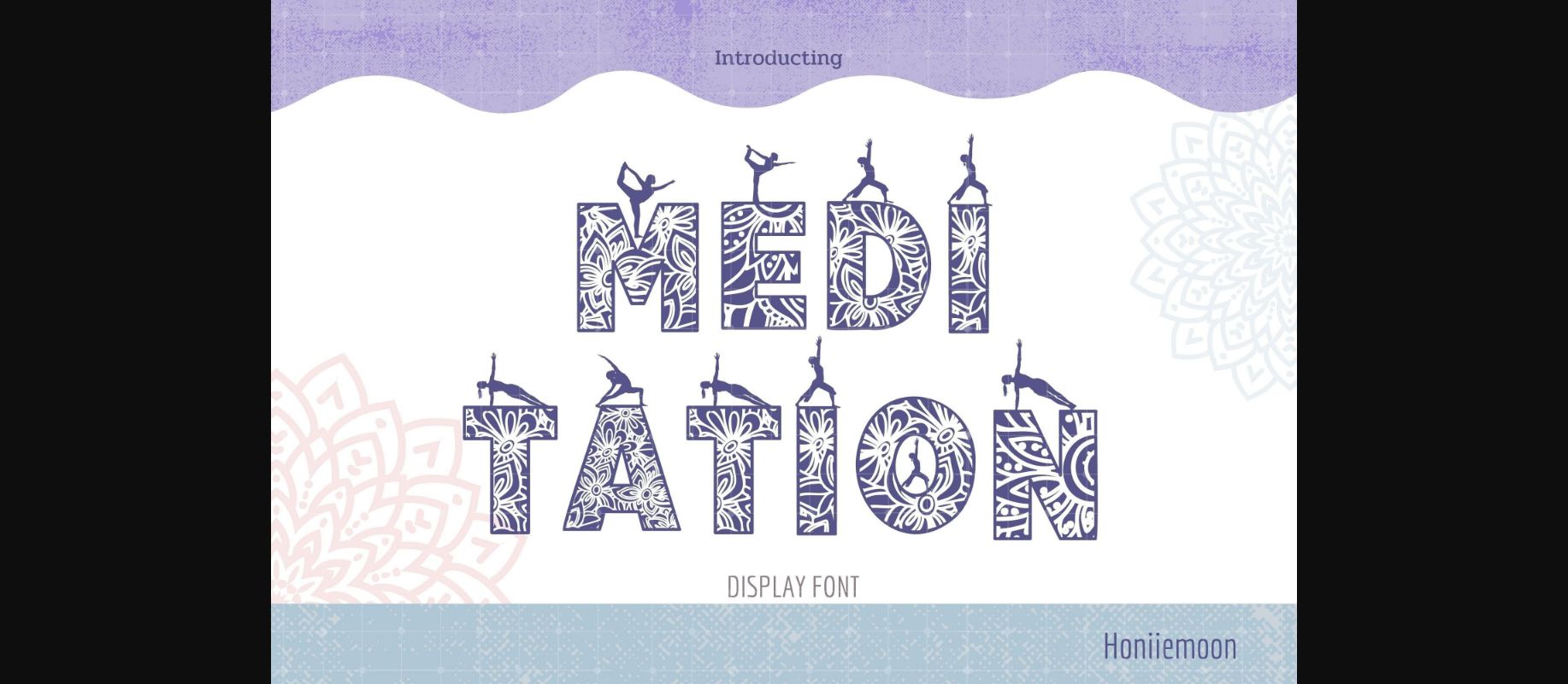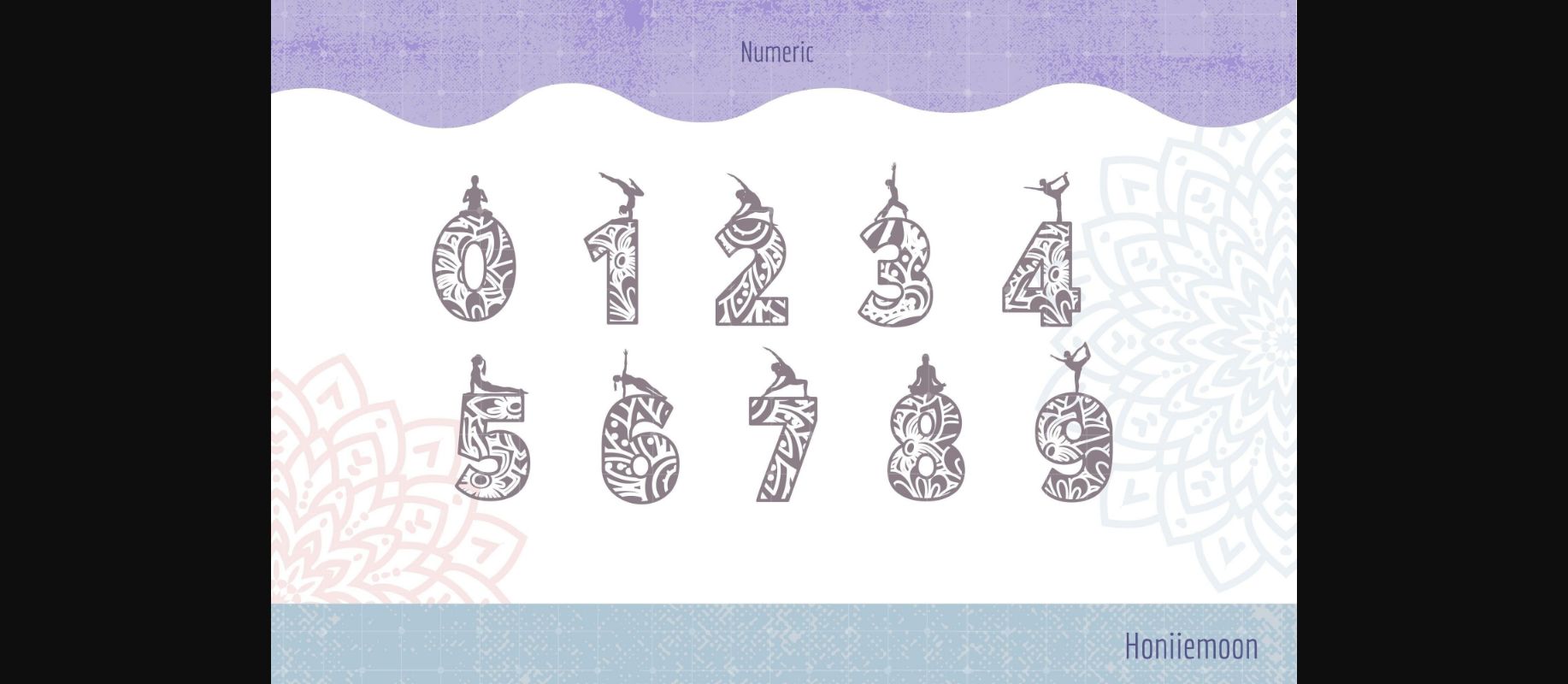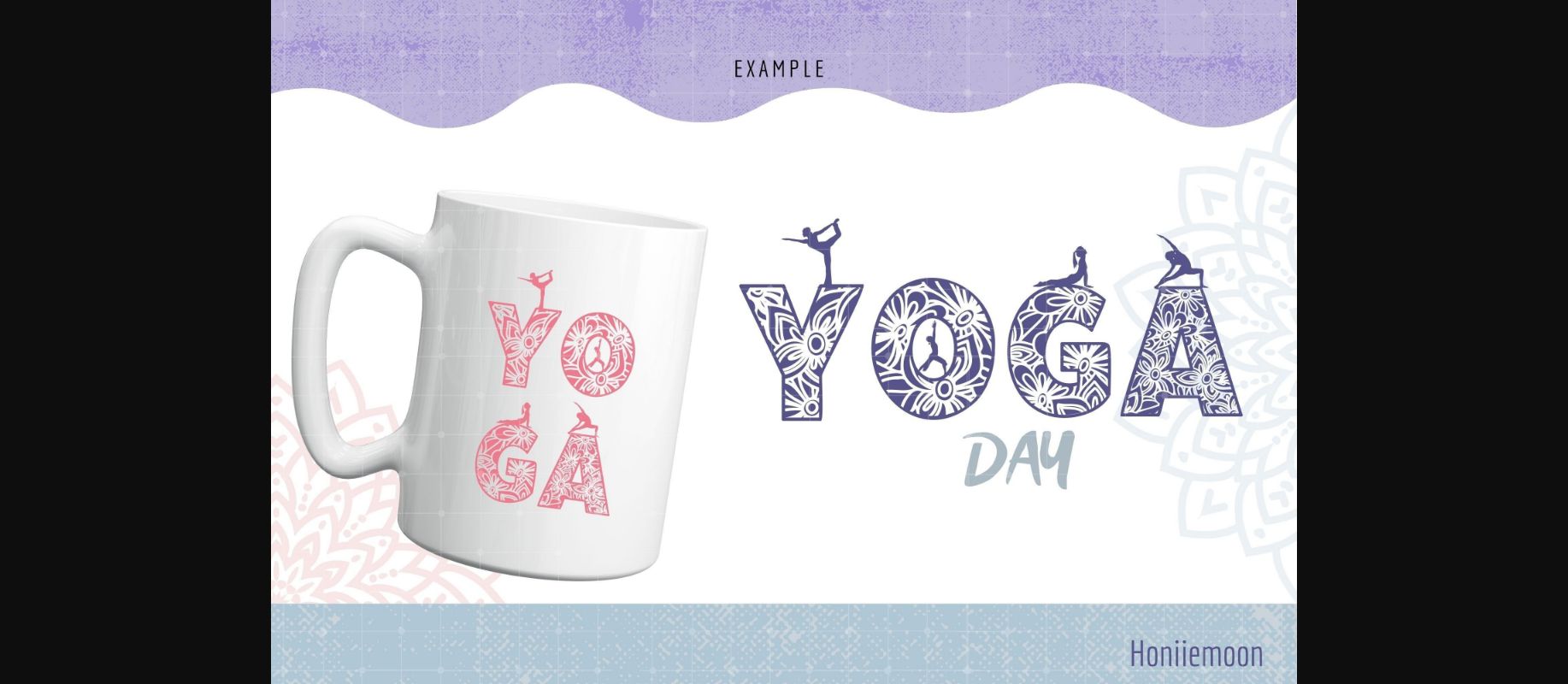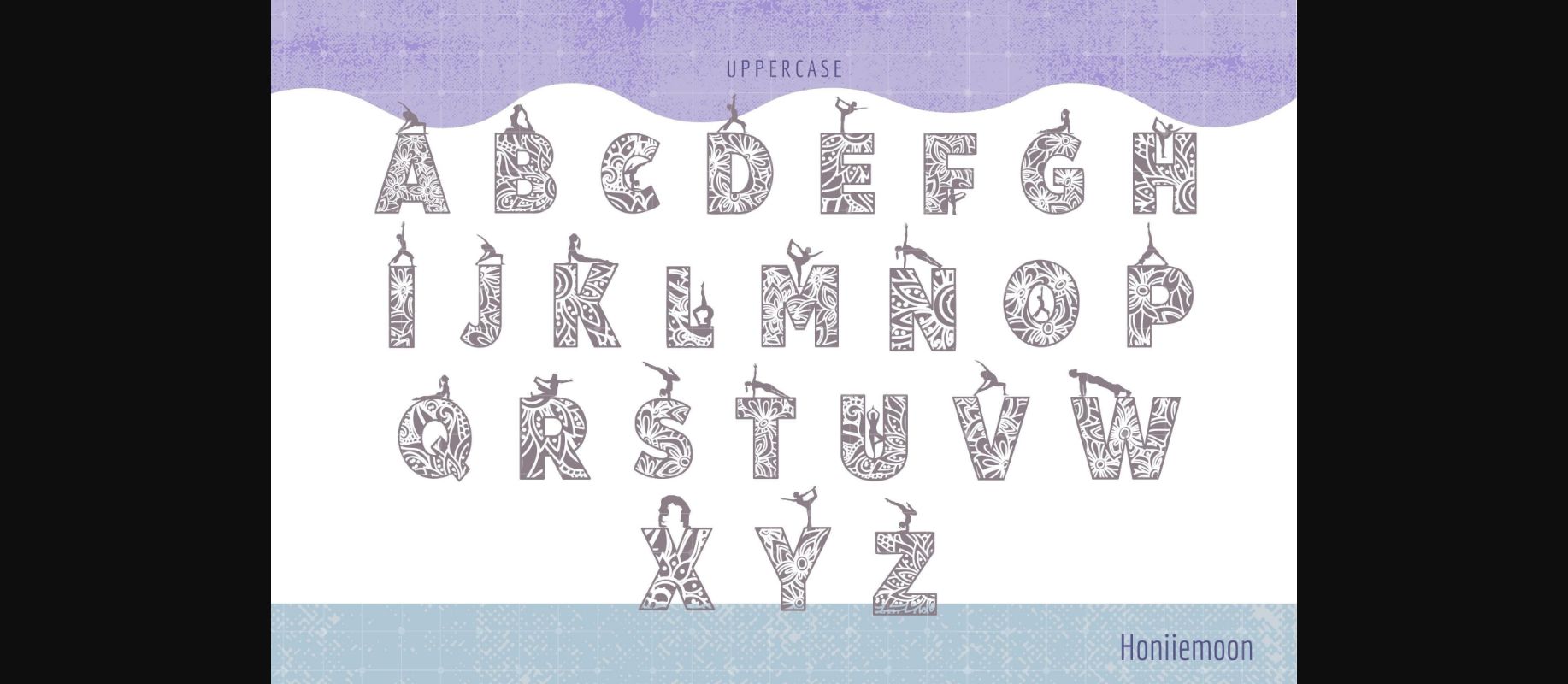
Meditation Font
About Meditation Font
Meditation is a cool and fun display font. It looks both cute and jolly and it will enhance each of your designs. The only limit is your imagination. Add this colorful and bold display font to each of your creative ideas and notice how it makes them come alive!